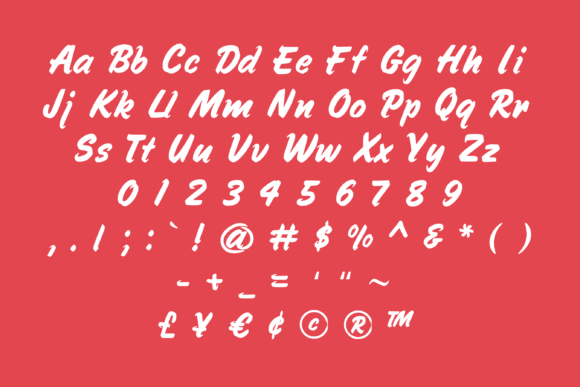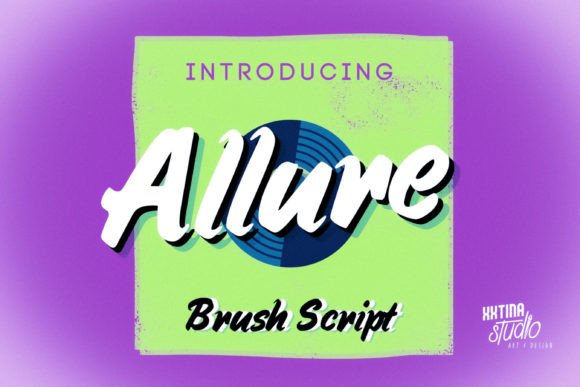
Introducing Allure Font: Elevate Your Designs with a Handmade Brush Script
Are you a designer or crafter looking to add a touch of elegance and sophistication to your projects? Look no further than the Allure Font, a beautiful handmade brush script font that is perfect for giving your designs and text a stylish flare. In this article, we’ll dive into the features and benefits of the Allure Font, and explore how you can use it to take your designs to the next level.
What is Allure Font?
Allure is a carefully crafted handmade brush script font that is designed to bring a touch of luxury and glamour to your designs. With its smooth, flowing lines and elegant strokes, this font is perfect for creating beautiful text-based designs that are sure to impress. Whether you’re working on a branding project, a wedding invitation, or a social media graphic, the Allure Font is the perfect choice.
Key Features of Allure Font
- Handmade with love: Each letter has been carefully crafted by hand to give the font a unique, organic feel.
- Brush script style: The font features a beautiful brush script style that is perfect for creating elegant and sophisticated designs.
- High-quality design: The font is designed to be clear and legible, even at small sizes.
- Multilingual support: The Allure Font supports multiple languages, making it perfect for designers and crafters around the world.
Benefits of Using Allure Font
So why choose the Allure Font for your next design project? Here are just a few benefits of using this beautiful font:
- Adds elegance and sophistication: The Allure Font is perfect for adding a touch of luxury and glamour to your designs.
- Perfect for branding and advertising: The font’s elegant style makes it perfect for use in branding and advertising projects.
- Great for crafters and DIY enthusiasts: The Allure Font is also perfect for crafters and DIY enthusiasts who want to add a personal touch to their projects.
How to Use Allure Font in Your Designs
Using the Allure Font in your designs is easy. Here are a few tips to get you started:
- Pair it with a simple font: Pair the Allure Font with a simple font to create a beautiful contrast.
- Use it for headings and titles: The Allure Font is perfect for use in headings and titles, where you want to make a big impact.
- Add some texture and graphics: Add some texture and graphics to your design to give it a more organic feel.
In conclusion, the Allure Font is a beautiful handmade brush script font that is perfect for giving your designs and text a stylish flare. With its elegant style, high-quality design, and ease of use, this font is perfect for designers and crafters around the world. Whether you’re working on a branding project, a wedding invitation, or a social media graphic, the Allure Font is the perfect choice. So why wait? Download the Allure Font today and start creating beautiful designs that are sure to impress.